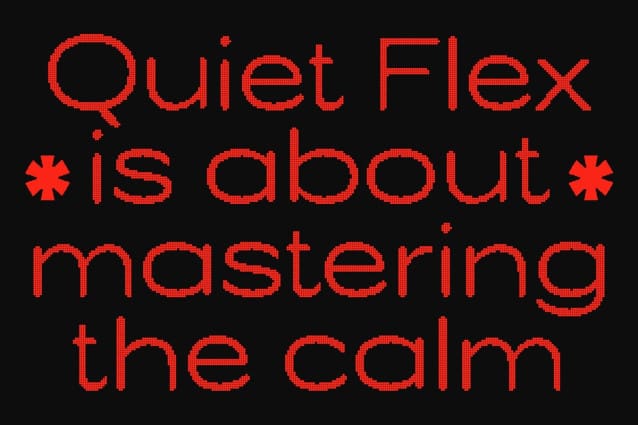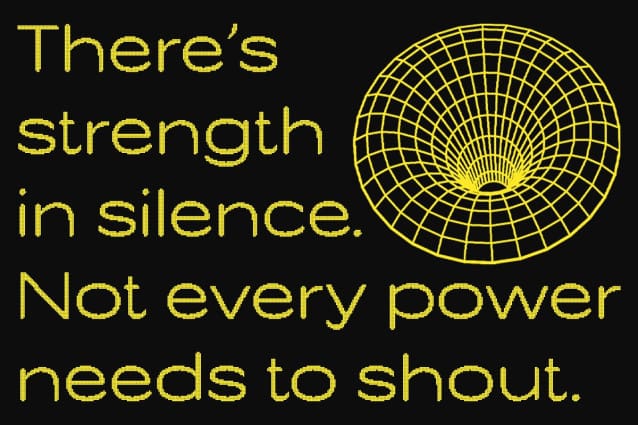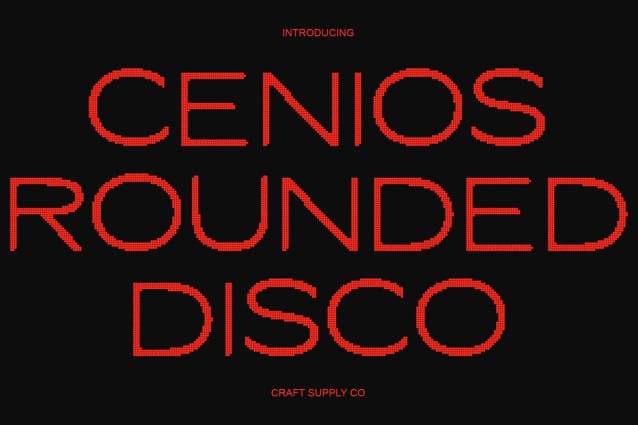
Cenios Rounded Disco Font
Cenios Rounded Disco Font – Modern Geometry with a Sparkling Twist,Modern Sans Serif with Contemporary Appeal This is a modern sans serif font that embodies geometric balance and sleek sophistication. With its clean lines and smooth curves, this typeface delivers a minimalist yet professional look, making it ideal for designers who value clarity, precision, and style. Its geometric foundation brings structure and harmony, giving every word a refined visual rhythm.
Disco Effect for Lively Elegance Infused with a subtle disco effect, this font transforms simplicity into spectacle. Each letter glimmers with a lively touch, creating a dynamic interplay of light and motion. The result is a glamorous yet polished feel perfect for designs that want to balance modern professionalism with playful energy.
Sleek Shapes for Versatile Design Built on geometric precision, this font offers consistency and versatility across all applications. The rounded terminals soften its contemporary structure, adding a friendly, approachable character. This balance of form and function ensures that your message remains clear, stylish, and memorable across digital and print media.
Ideal for Modern and Eye-Catching Projects This font shines in projects that demand a fresh, modern edge whether it’s branding, posters, editorials, or creative campaigns. Its combination of clean geometry and disco-inspired sparkle brings a unique vibrancy to every design. For designers seeking a typeface that merges sophistication with excitement, delivers both in perfect harmony.